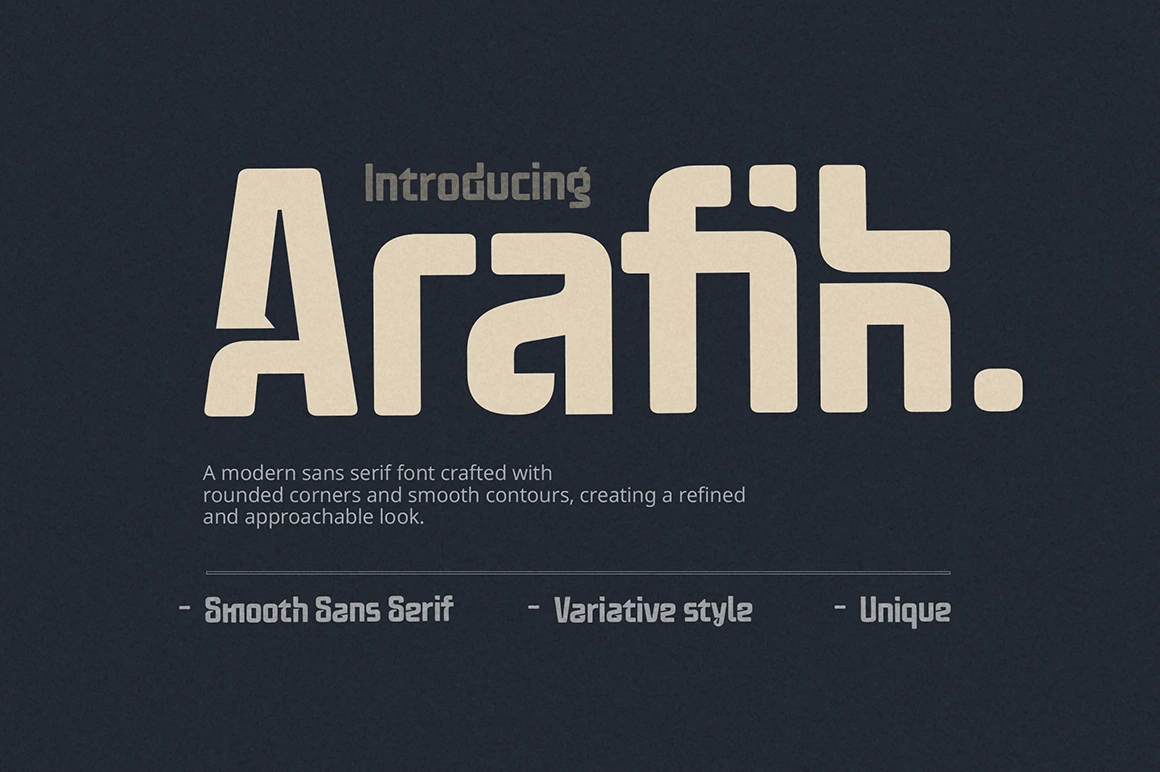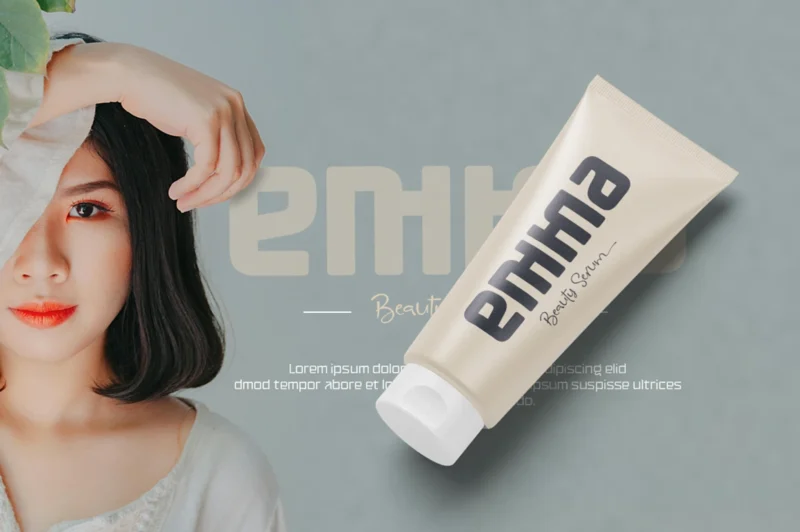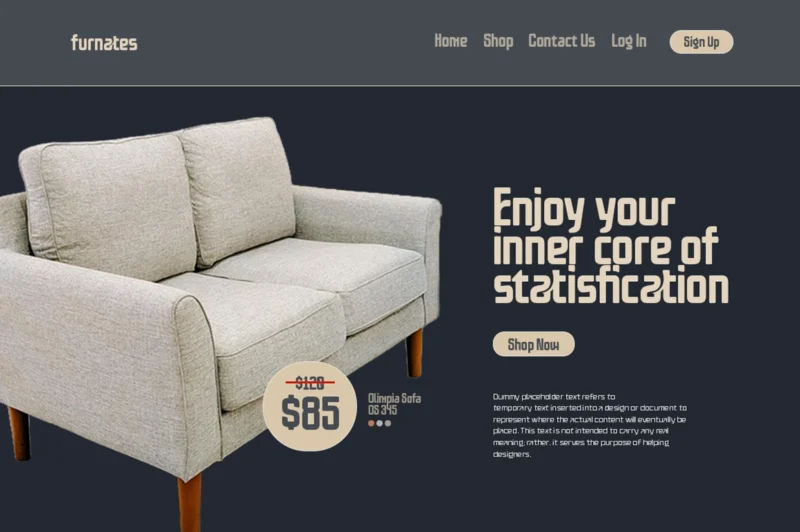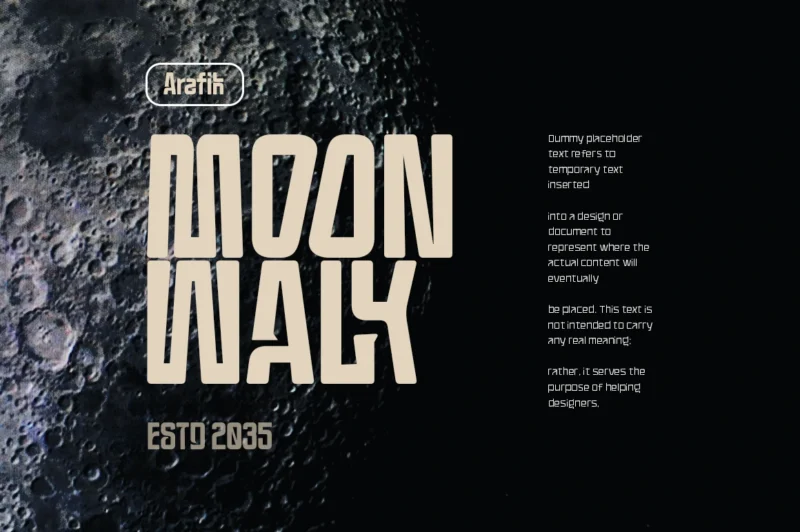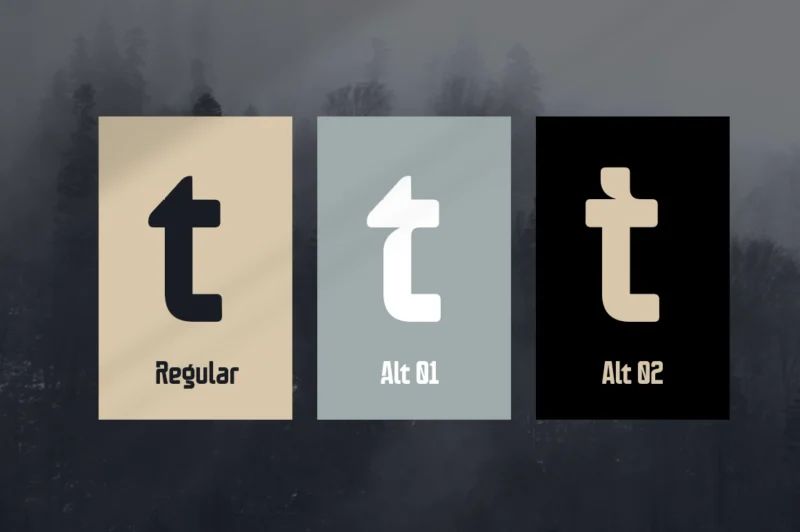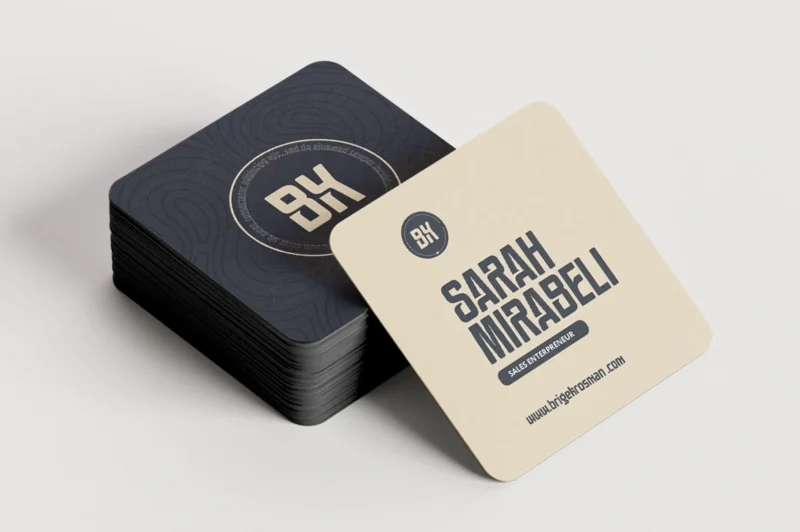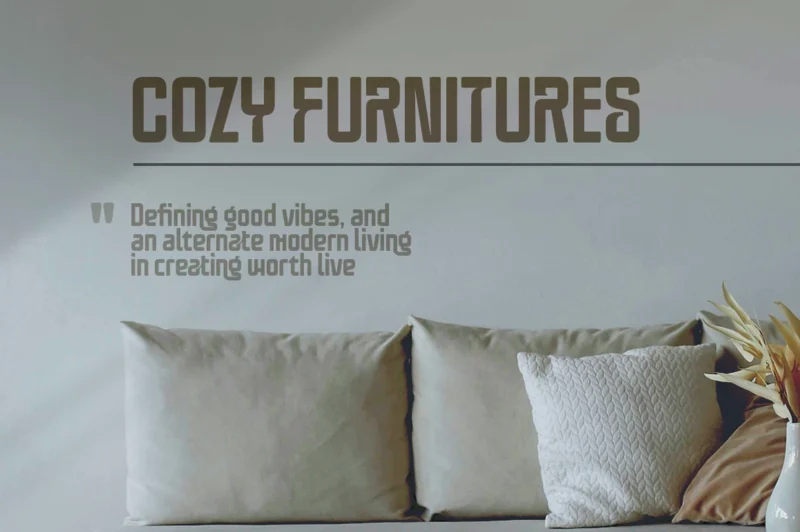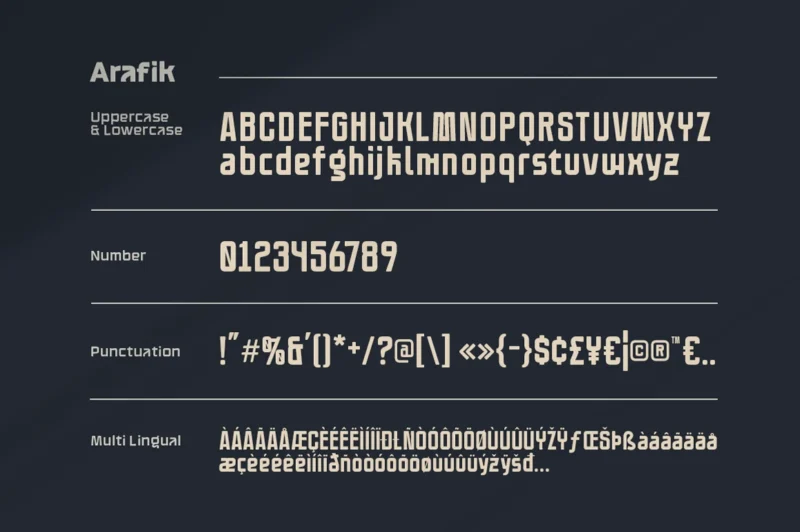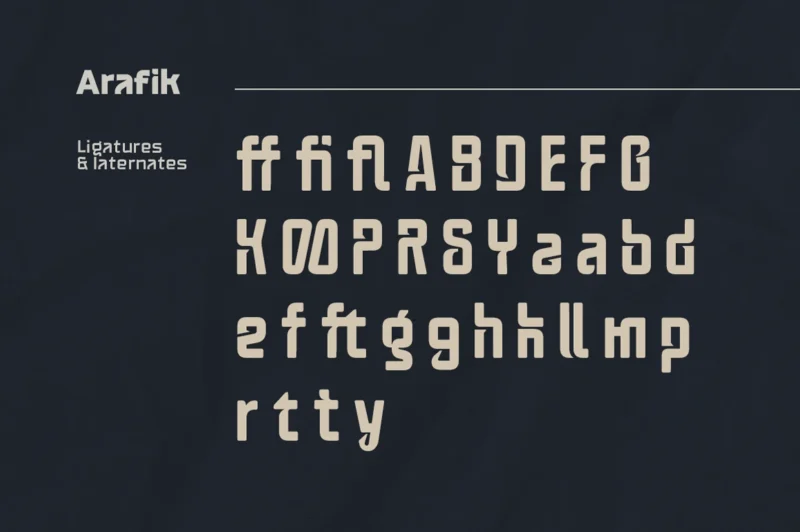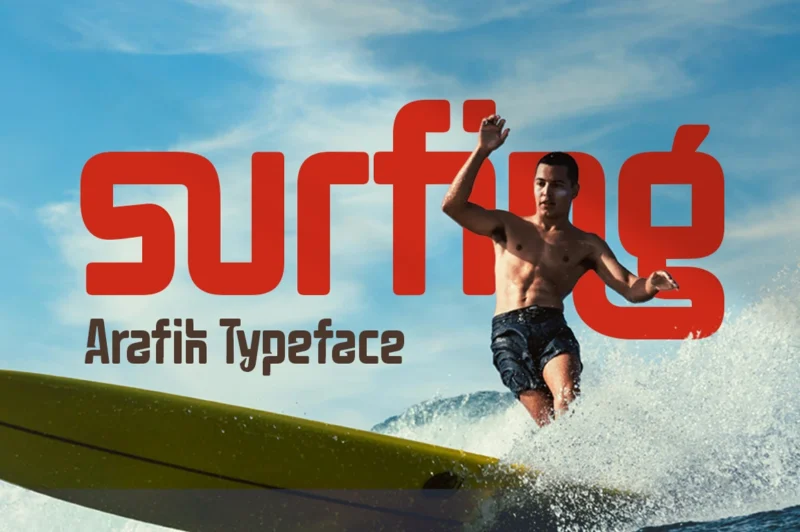
Arafik Regular
Arafik is a modern sans serif font crafted with rounded corners and smooth contours, creating a refined and approachable look. Its bold and balanced letterforms convey confidence while maintaining a clean, contemporary aesthetic. Equipped with alternates and elegant ligatures, Arafik offers creative flexibility for designers seeking a distinctive touch. Perfect for branding, logo design, packaging, and modern visual identities, this font blends professionalism with subtle personality—making every project stand out with style and clarity.
Arafik – Smooth Sans Serif Font